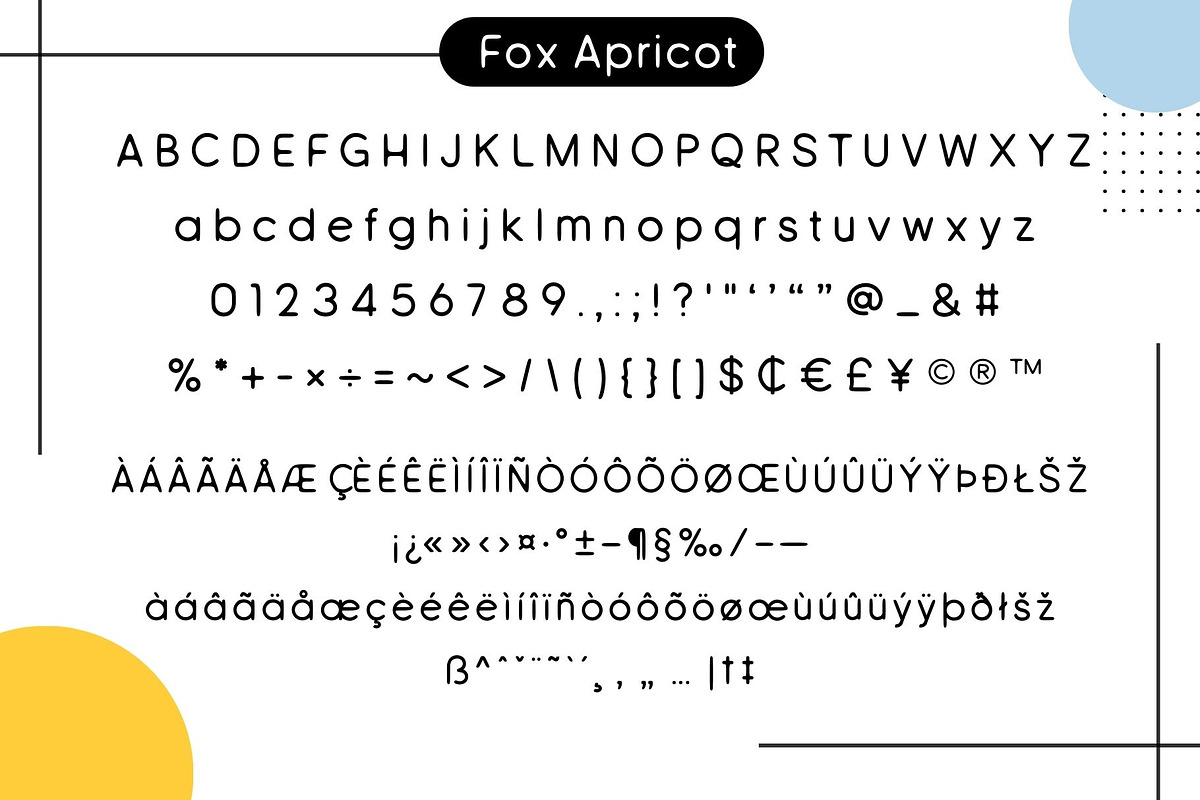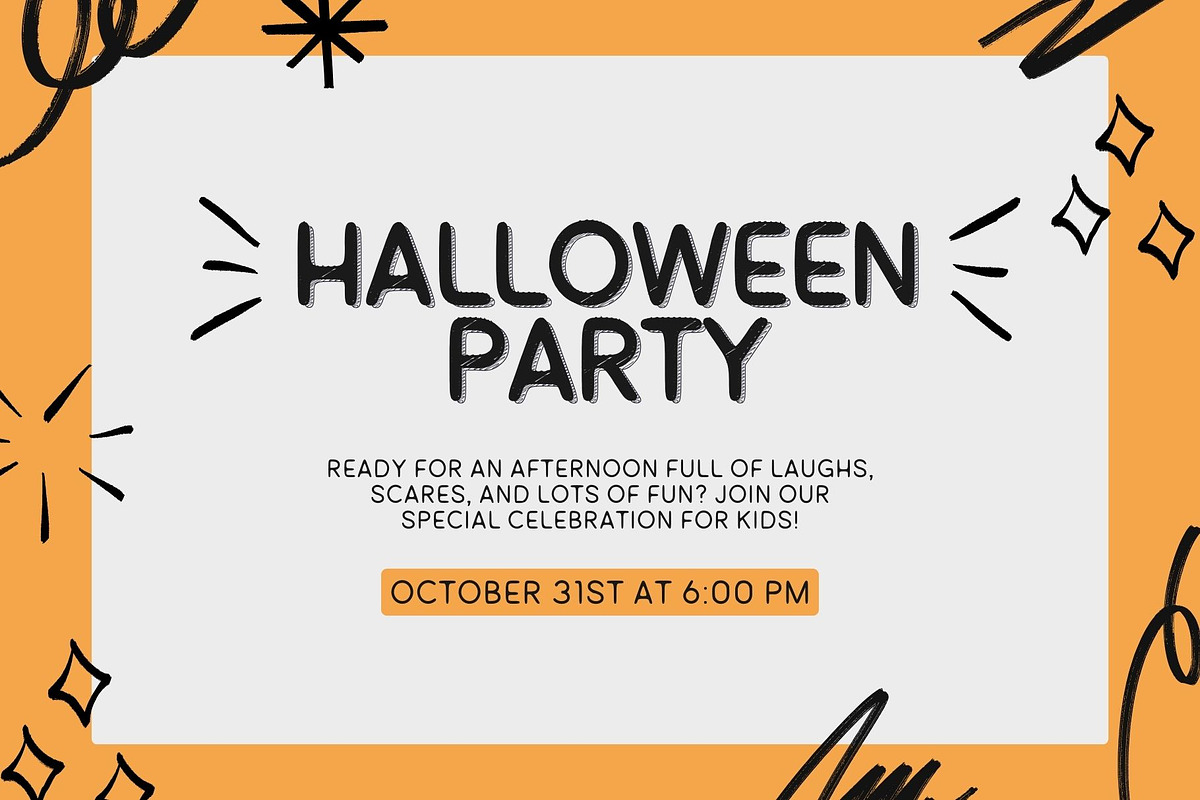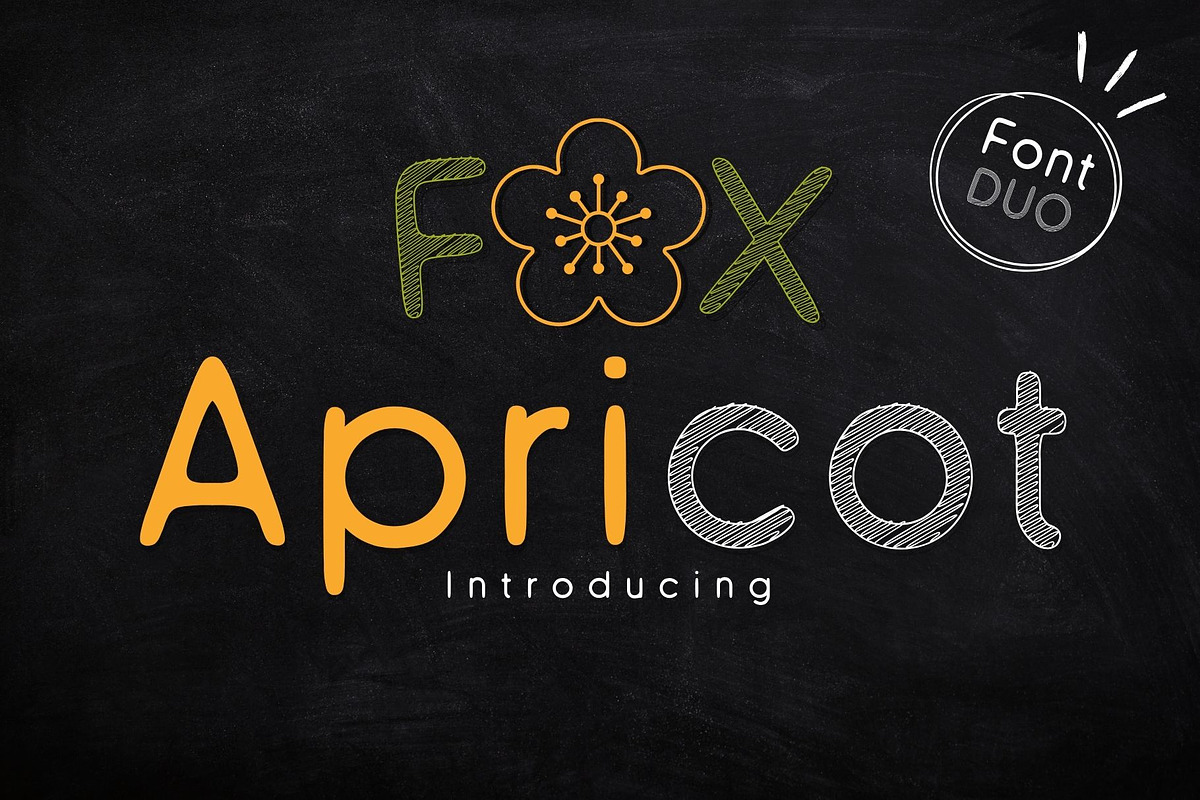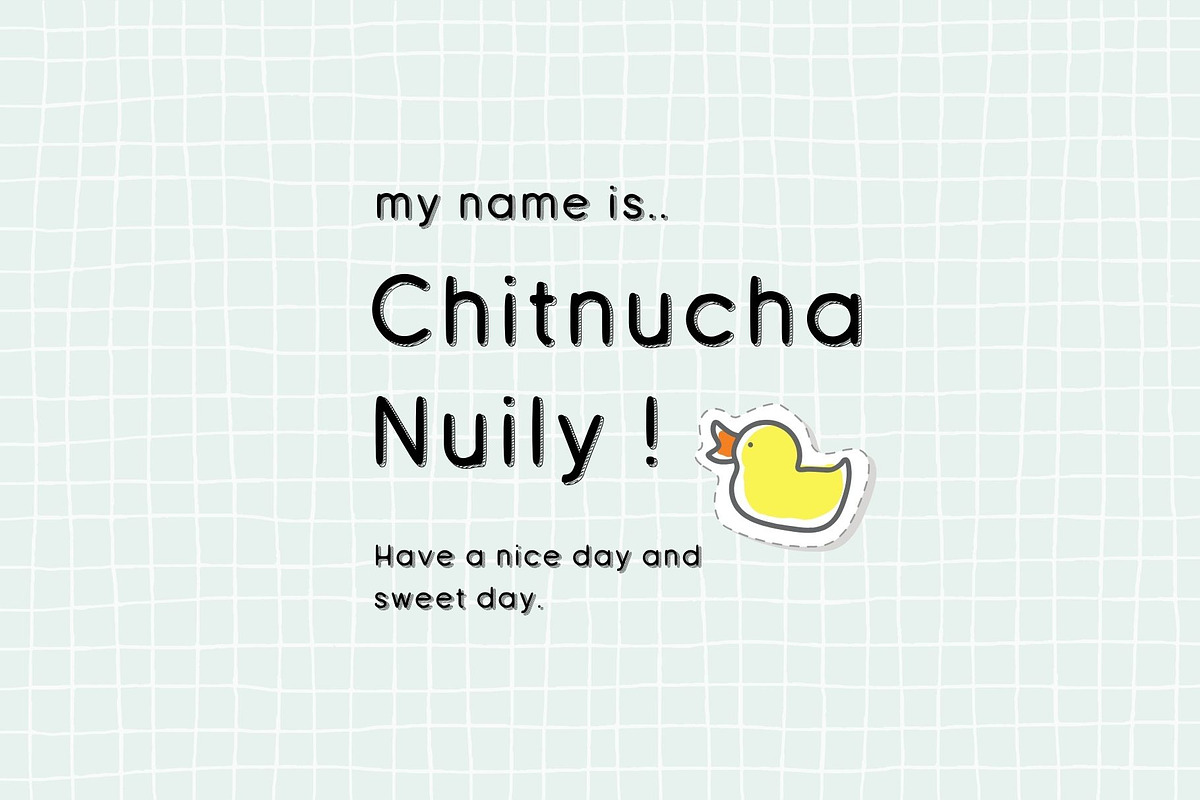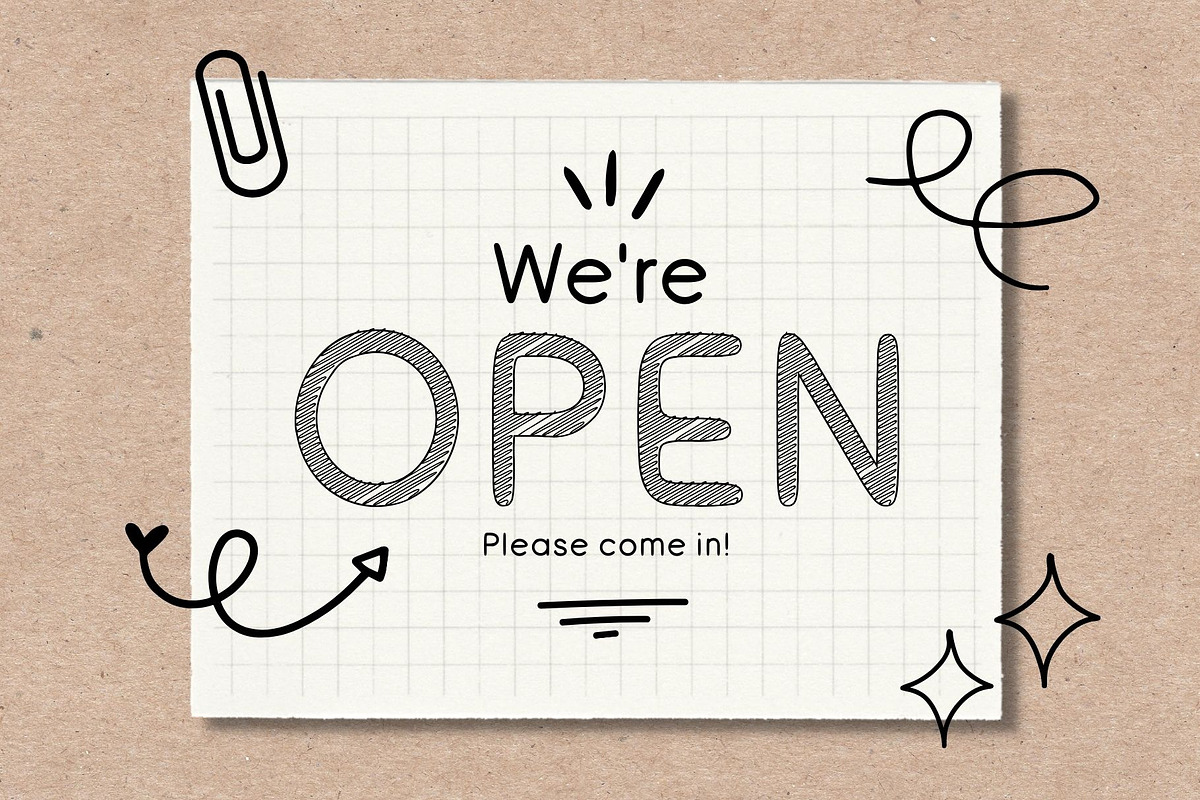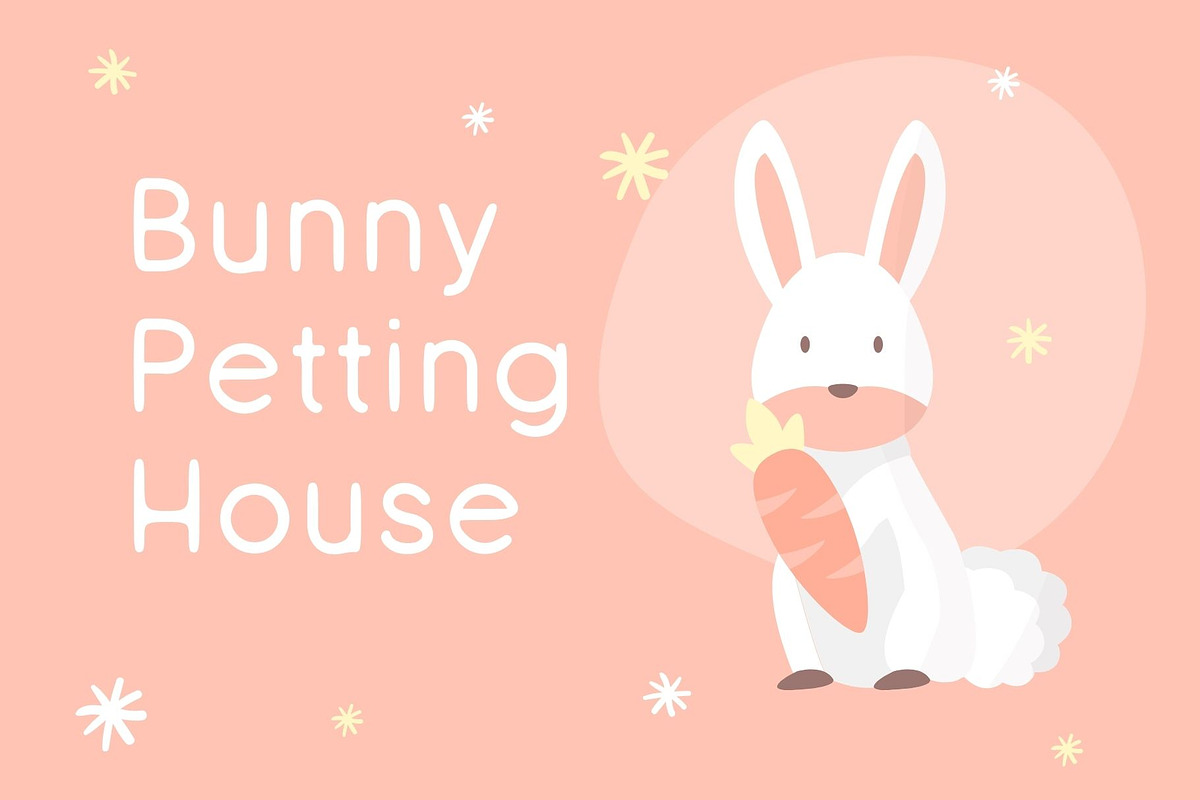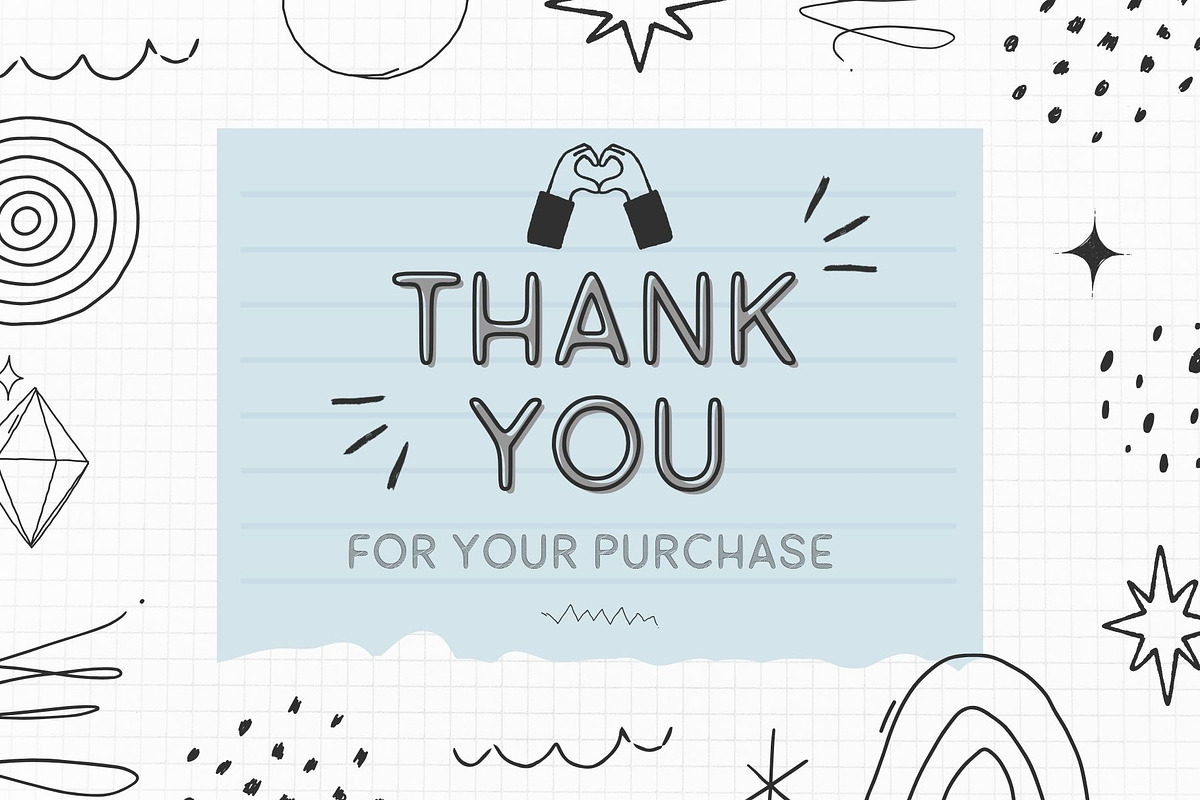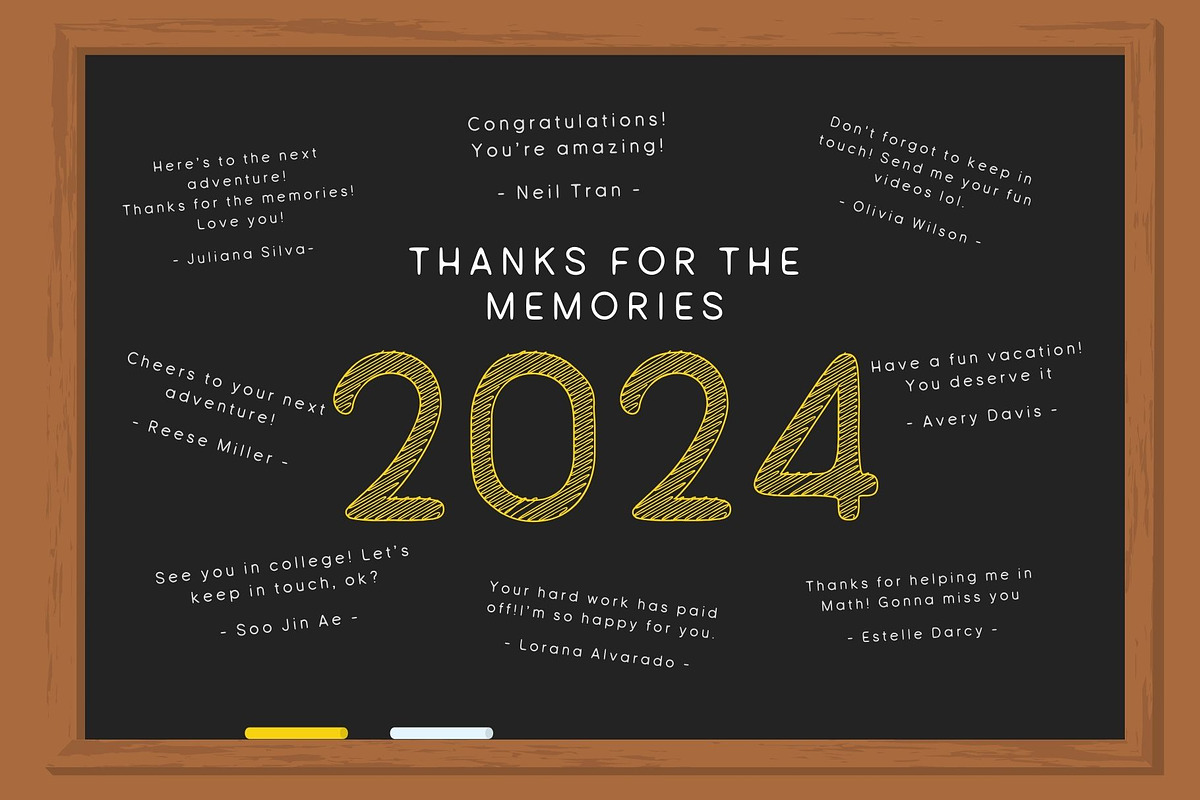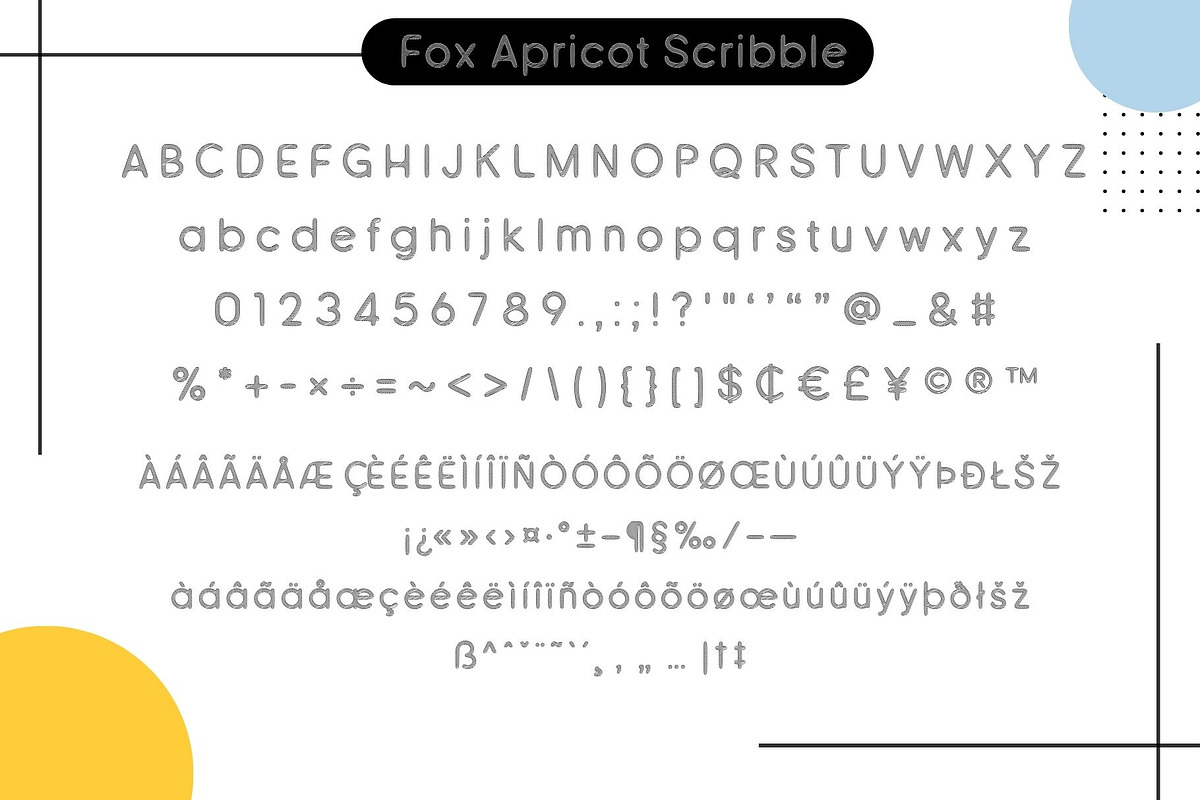
Fox Apricot Font Duo
Fox Apricot Font Duo is a cute, simple, and clean handwritten font. The font looks casual and playful. It’s the perfect choice for a wide range of creative projects. Whether you’re creating inspirational quotes, handwritten notes, captivating headings, engaging blogs, striking logos, or inviting invitations, Fox Apricot Font adds a delightful touch to any project.